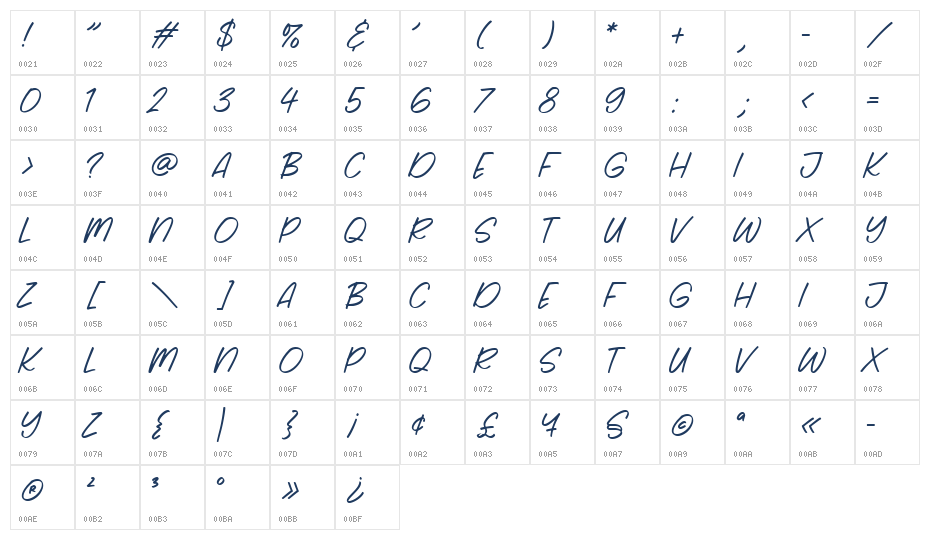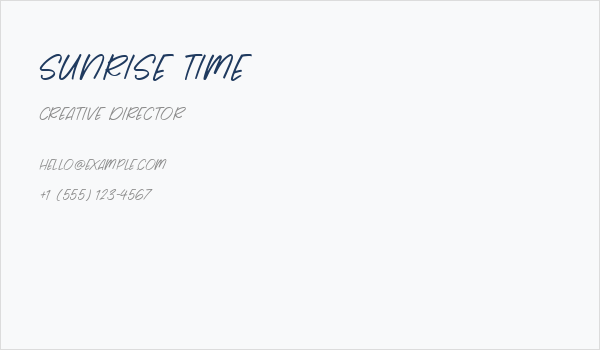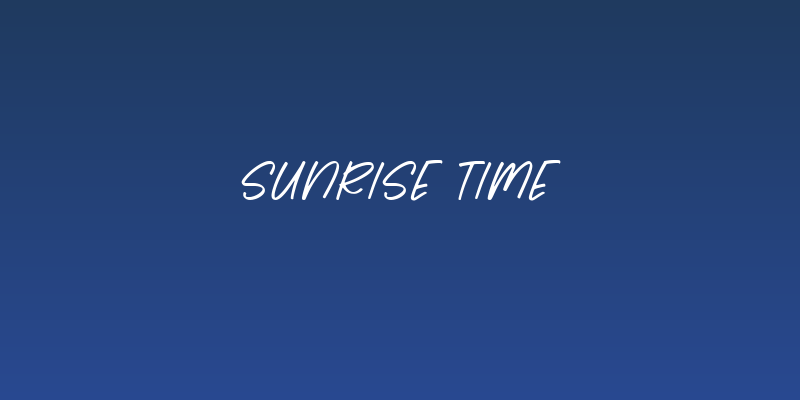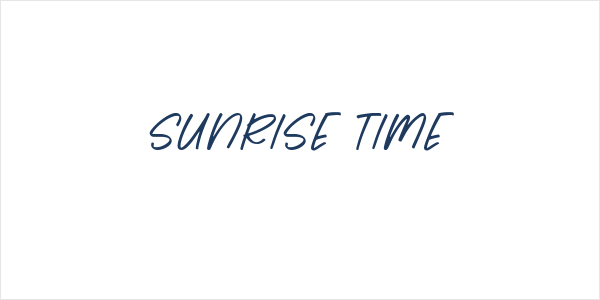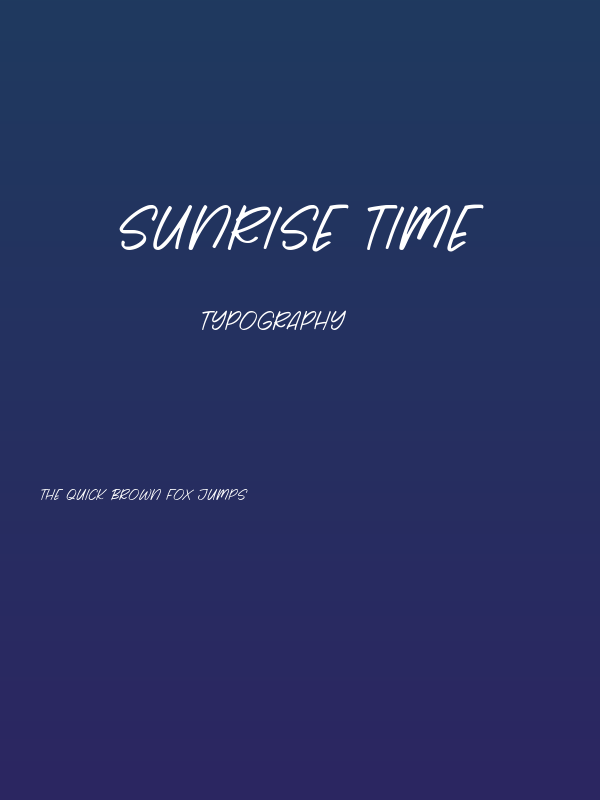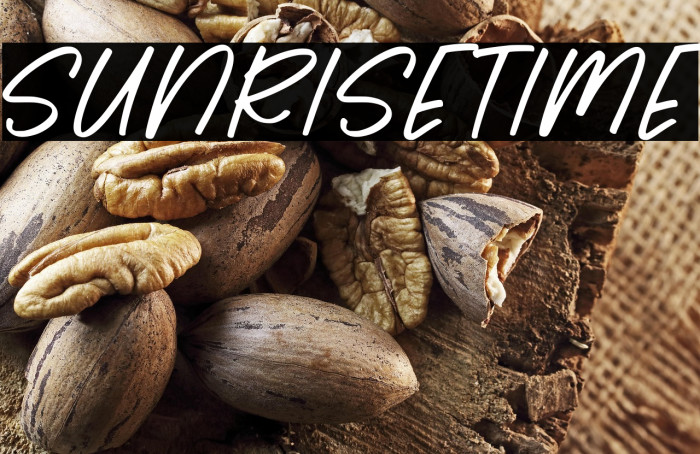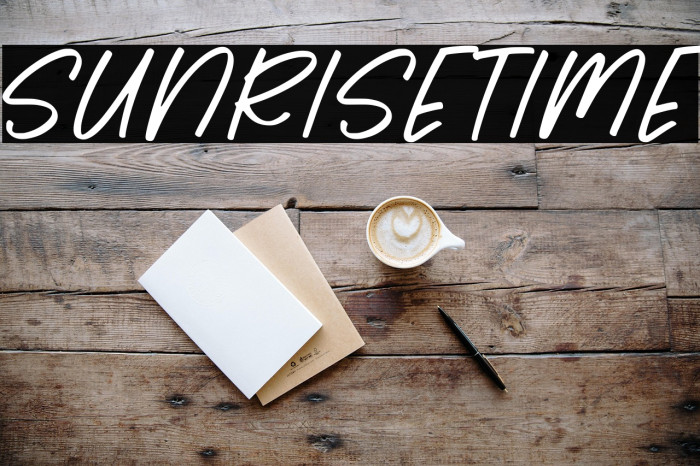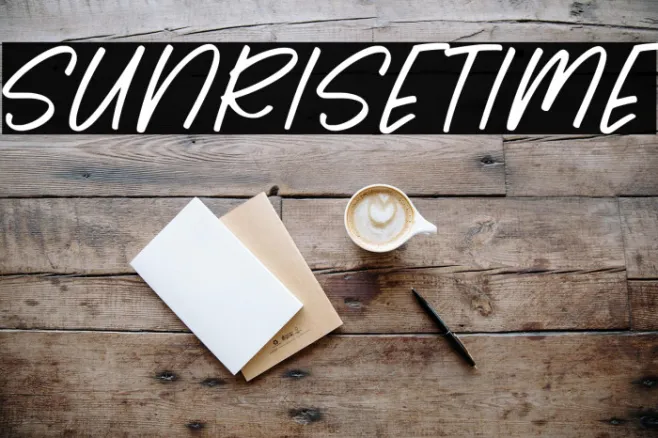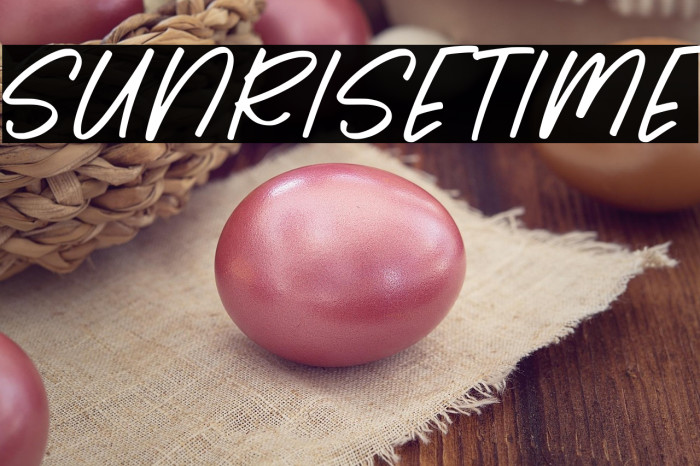
Sunrise Time Font
Sunrise Time Description
A casual, handwritten script font with a smooth, flowing style.
Sunrise Time
| Overall Style | Casual, Handwritten, Friendly |
| Use Case | Invitations, Greeting Cards, Personal Branding, Logos, Creative Projects |